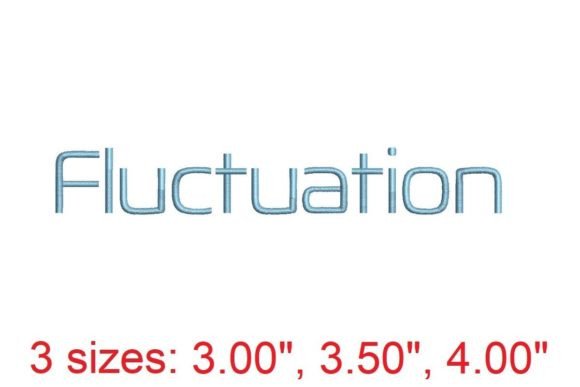
Fluctuation Embroidery Font Review
The Fluctuation Embroidery Font is a standout addition to any digital embroidery collection, offering a modern aesthetic that blends well with both minimalist and intricate design styles. As an embroidery designer who frequently works on custom apparel, handmade gifts, and commercial embroidery projects, I was eager to test this font in real-world scenarios.
First Impressions: Visual Mood and Detail Level
Upon first glance, the Fluctuation Embroidery Font exudes a sense of movement and fluidity. Its unique character shapes and subtle variations give it a handcrafted feel, making it ideal for personalized gifts and branded merchandise. The font’s detail level is impressive, with enough complexity to catch the eye without overwhelming the design.
This font is particularly suited for projects that require a touch of elegance and creativity, such as tote bag designs, sweatshirt embroidery, or embroidered patches. It has a decorative appeal that can elevate even the simplest of items into something special.
Real-World Performance: Stitching Personality and Decorative Appeal
When tested on various fabrics—stretchy materials, textured surfaces, and dark backgrounds—the Fluctuation Embroidery Font performed consistently well. Its stitch density is balanced, allowing for smooth execution on small hoop sizes without sacrificing visual impact.
For projects like baby blankets or kitchen towels, the font's structure ensures clarity even when used in smaller sizes. It also holds up well on curved cap surfaces, maintaining its shape and legibility.
One of the most appealing aspects of Fluctuation is its versatility. Whether you're working on a simple applique design or a complex fill stitch pattern, this font adapts seamlessly, making it a valuable tool for both beginners and experienced embroiderers.
Practical Use: From Small Hoop Sizes to Commercial Projects
As an Etsy seller and small business owner, I often need to balance design quality with practicality. The Fluctuation Embroidery Font excels in this area. It works well with tiny lettering, dense stitch areas, and layered details, making it suitable for a wide range of applications.
For example, when used on a custom apron or a seasonal handmade gift, the font adds a professional finish without requiring excessive machine time. It also pairs well with running stitch and satin stitch techniques, providing flexibility in how it's incorporated into a design.
When used in commercial embroidery, the font maintains its integrity across multiple products, ensuring brand consistency. It’s especially useful for printable mockups and design assets, helping to create cohesive product listings that attract customers.
Considerations for Handmade Products and Customer Engagement
The Fluctuation Embroidery Font can significantly enhance the value of a handmade product. Its unique style makes it ideal for personalized gifts, where attention to detail can make a big difference in customer satisfaction.
When used in a finished product, such as a tote bag design or a pillow cover, the font contributes to a polished look that increases buyer trust. It also helps with product photography, as its visual appeal stands out in high-quality images.
For craft fair products or boutique merchandise, the font adds a level of sophistication that can set your work apart from the competition. It’s also a great choice for back-to-school themed items, where clean, readable fonts are essential.
Key Tips for Using Fluctuation Embroidery Font
To get the best results with the Fluctuation Embroidery Font, consider the following tips:
Final Thoughts: A Versatile Tool for Creative Entrepreneurs
The Fluctuation Embroidery Font is a reliable and stylish option for anyone looking to add a fresh, modern touch to their embroidery work. Whether you're creating custom apparel, embroidered patches, or seasonal handmade gifts, this font offers the flexibility and quality needed for both personal and commercial use.
As an experienced embroidery designer, I found it to be a valuable addition to my toolkit. Its ability to adapt to different projects and fabric types makes it a must-have for creative entrepreneurs, Etsy sellers, and small business owners who want to stand out in the handmade market.
If you're considering adding the Fluctuation Embroidery Font to your collection, I recommend testing it thoroughly and using it in real projects to fully appreciate its potential.